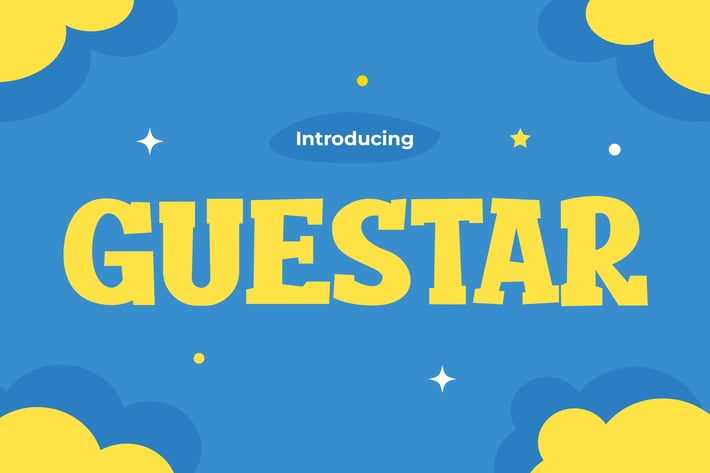
Kids Font - Guestar
Guestar: Whimsical Font Adventure for Kids, Games, and Cartoons
Discover “Guestar,” the ultimate font adventure that combines the whimsy of kids’ cartoons with the excitement of gaming. Designed to ignite the imagination and capture the hearts of both children and gamers, “Guestar” brings a playful charm to any project. With its vibrant and friendly characters, this font is perfect for creating engaging content for kids’ games, animated series, and cartoon-themed designs. Each letter is crafted with care to evoke a sense of wonder and adventure, making “Guestar” an essential tool for storytellers and game developers alike.